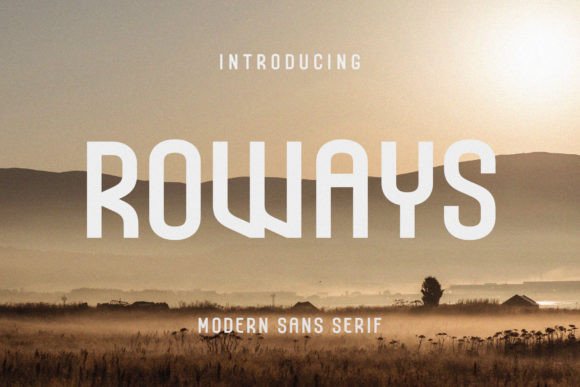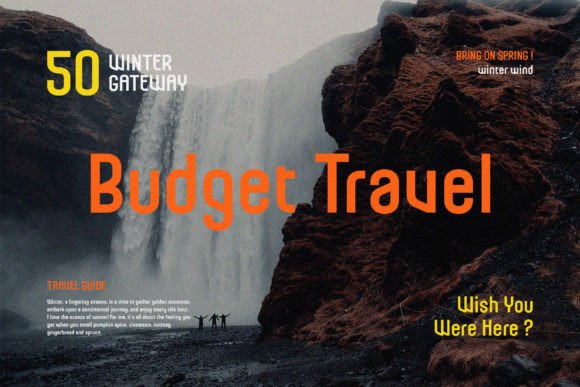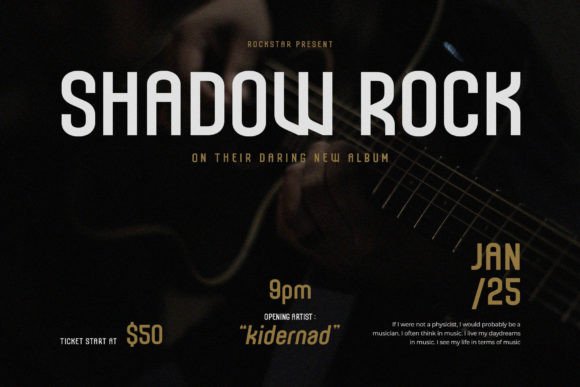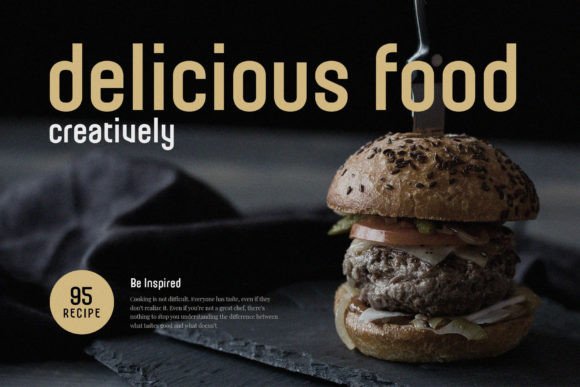
Roways Font: Modern Sans Serif for Inspiring Branding & Design
About the Roways Font
Welcome to the world of Roways Font, a typeface that will inspire your next great project. Roways is a modern and stylish sans serif font. Whatever the topic, this font will be a wonderful asset to your font library, as it has the potential to enhance any creation.
Roways excels in headlines, short paragraphs, and branding applications where a clean, modern aesthetic is desired. Its strong, geometric forms make it ideal for logos, posters, and short marketing copy. However, its condensed letterforms make it less suitable for extended body text or UI elements where readability over long stretches is crucial.
The font possesses a bold and confident personality. It projects a sense of modern sophistication and would be a strong choice for brands aiming for a sleek, professional image, perhaps in technology, finance, or design.
Pairing Roways with a classic serif like Garamond or a more playful script like Allura would create effective contrast and visual interest. For a more minimalist approach, consider pairing it with a geometric sans-serif like Futura.